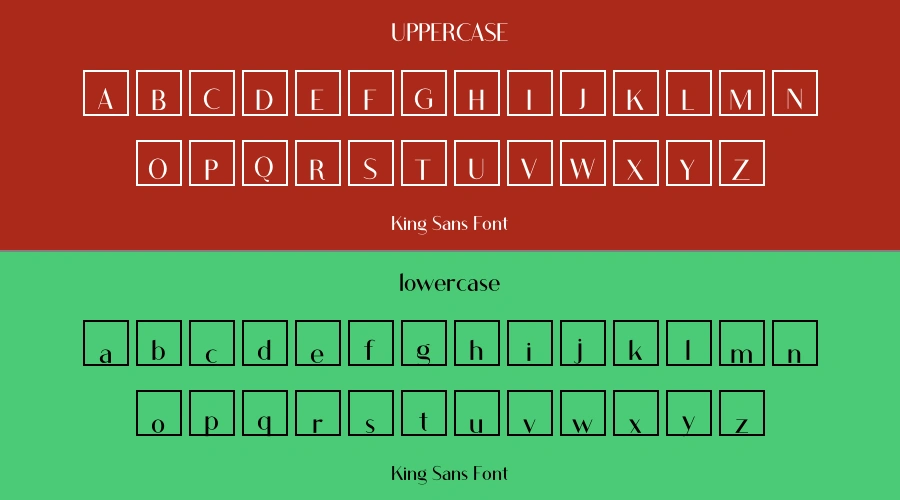
About King Sans Font
King Sans Font represents a sophisticated approach to type design, balancing high x-height with durability. Perfect for editorial design, this font family showcases impressive reliability and market confidence throughout its character set. Designers appreciate its versatility and reliability.
Designers will appreciate nuanced touches including structural clarity and decorative sets, adding sophistication to any project. These features become apparent in data tables, where print fidelity matters most. The careful treatment of terminal angle and academic heritage ensures optimal performance.
King Sans Font |